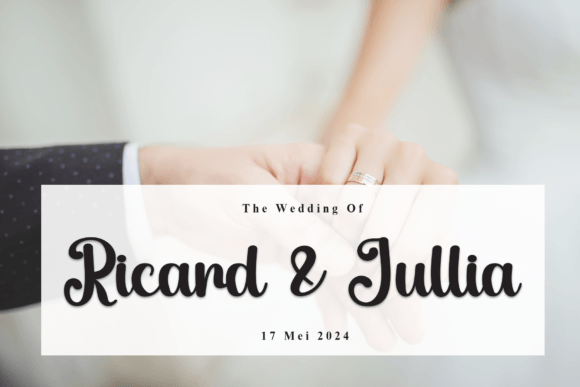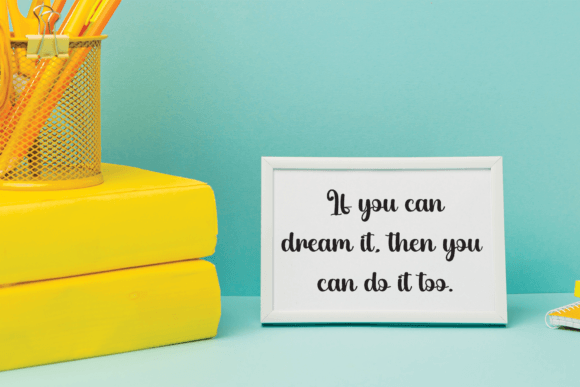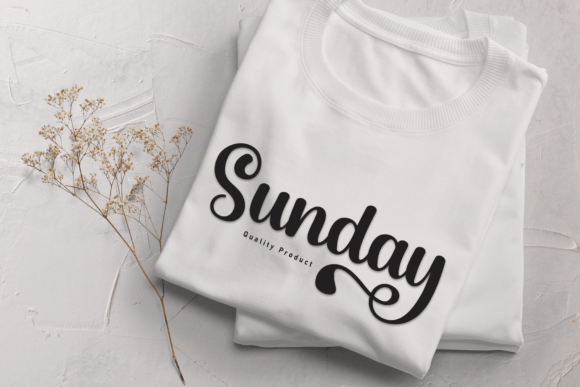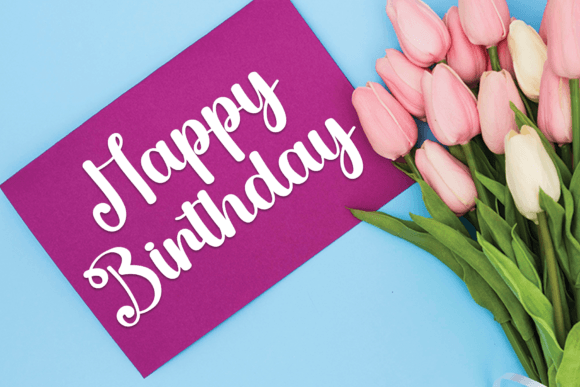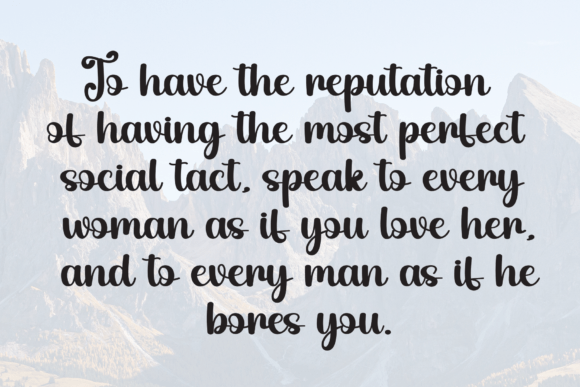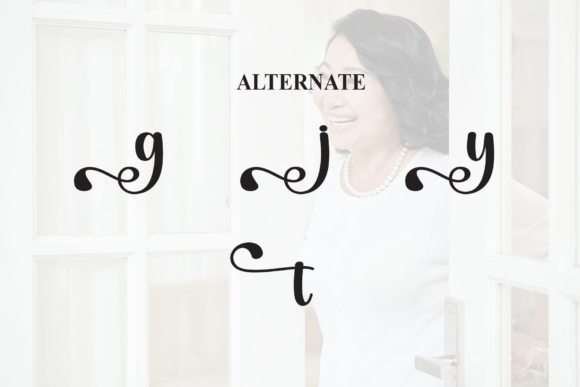
Aunty Font: The Sweet and Friendly Handwritten Font for Your Design Needs
Are you a designer or crafter looking for a font that can add a personal touch to your projects? Look no further than Aunty Font, a sweet and friendly handwritten font that’s perfect for a wide range of designs. With its natural and unique style, Aunty Font is incredibly versatile and can be used in various creative projects, from digital designs to craft projects.
What is Aunty Font?
Aunty Font is a beautiful handwritten font that’s designed to bring a touch of warmth and personality to your designs. Its natural and unique style makes it stand out from other fonts, and its friendly tone is sure to make your projects feel approachable and inviting. Whether you’re creating digital designs, such as social media graphics, blog posts, or website content, or working on craft projects, like handmade cards, gift tags, or scrapbooking pages, Aunty Font is the perfect choice.
The Benefits of Using Aunty Font
So, what makes Aunty Font so special? Here are just a few benefits of using this amazing font in your designs:
• Unique and eye-catching: Aunty Font has a distinctive style that’s sure to grab attention and make your designs stand out from the crowd.
• Versatile: Aunty Font can be used in a wide range of designs, from digital projects to craft projects, and can be paired with other fonts to create a unique look.
• Easy to read: Despite its handwritten style, Aunty Font is incredibly easy to read, making it perfect for body text, headings, and titles.
• Personal touch: Aunty Font adds a personal touch to your designs, making them feel more approachable and friendly.
How to Use Aunty Font in Your Designs
Using Aunty Font in your designs is easy! Here are a few ideas to get you started:
• Digital designs: Use Aunty Font in your social media graphics, blog posts, website content, and more to add a personal touch to your online presence.
• Craft projects: Add Aunty Font to your handmade cards, gift tags, scrapbooking pages, and other craft projects to make them feel more special and unique.
• Pair with other fonts: Experiment with pairing Aunty Font with other fonts to create a unique look that’s all your own.
Tips for Getting the Most Out of Aunty Font
Here are a few tips for getting the most out of Aunty Font:
• Experiment with different sizes: Aunty Font looks great in a variety of sizes, from small body text to large headings.
• Play with colors: Aunty Font can be used with a range of colors, from bright and bold to soft and pastel.
• Add embellishments: Consider adding embellishments, such as flowers or stars, to your Aunty Font designs to make them feel more whimsical and fun.